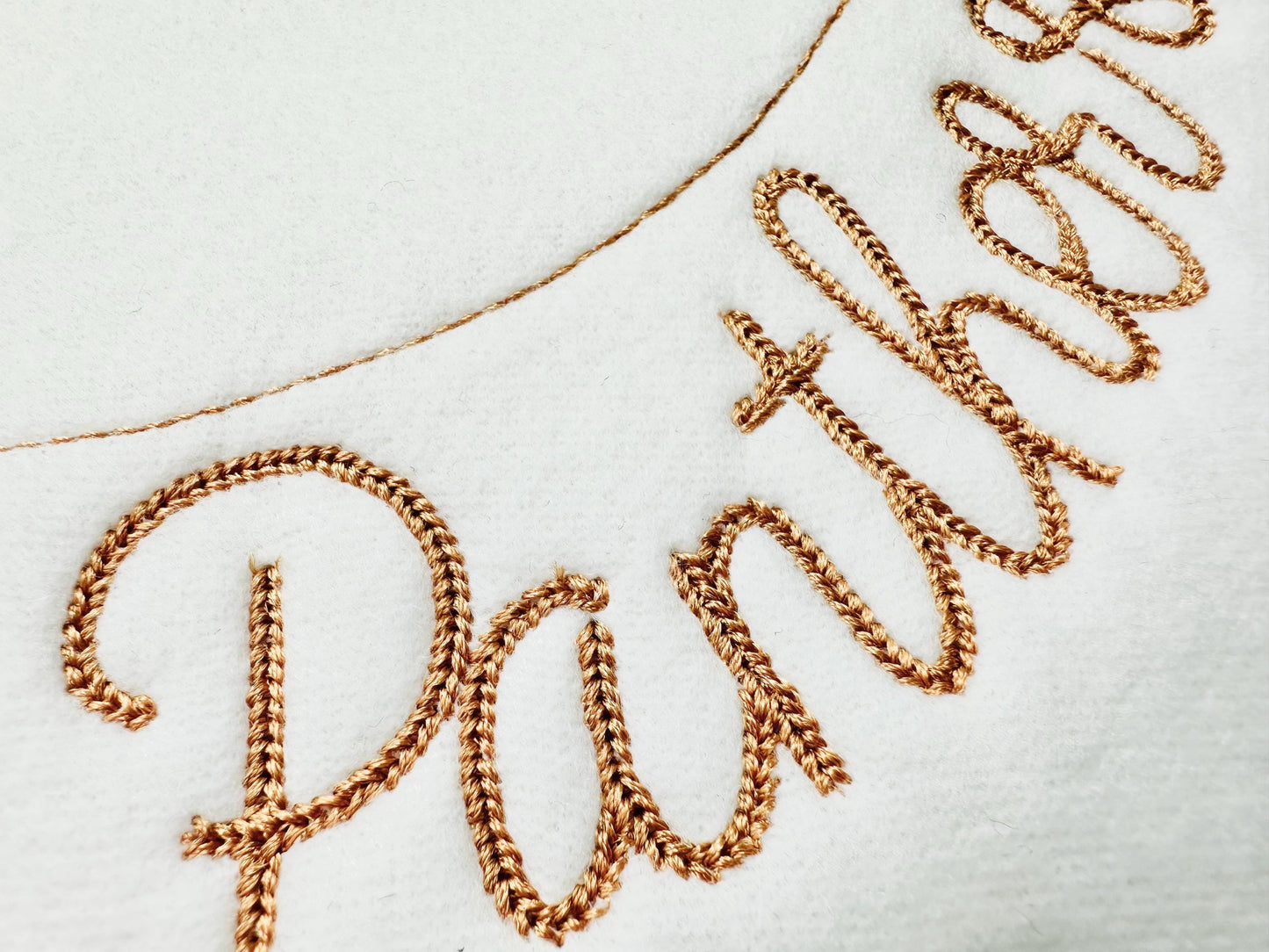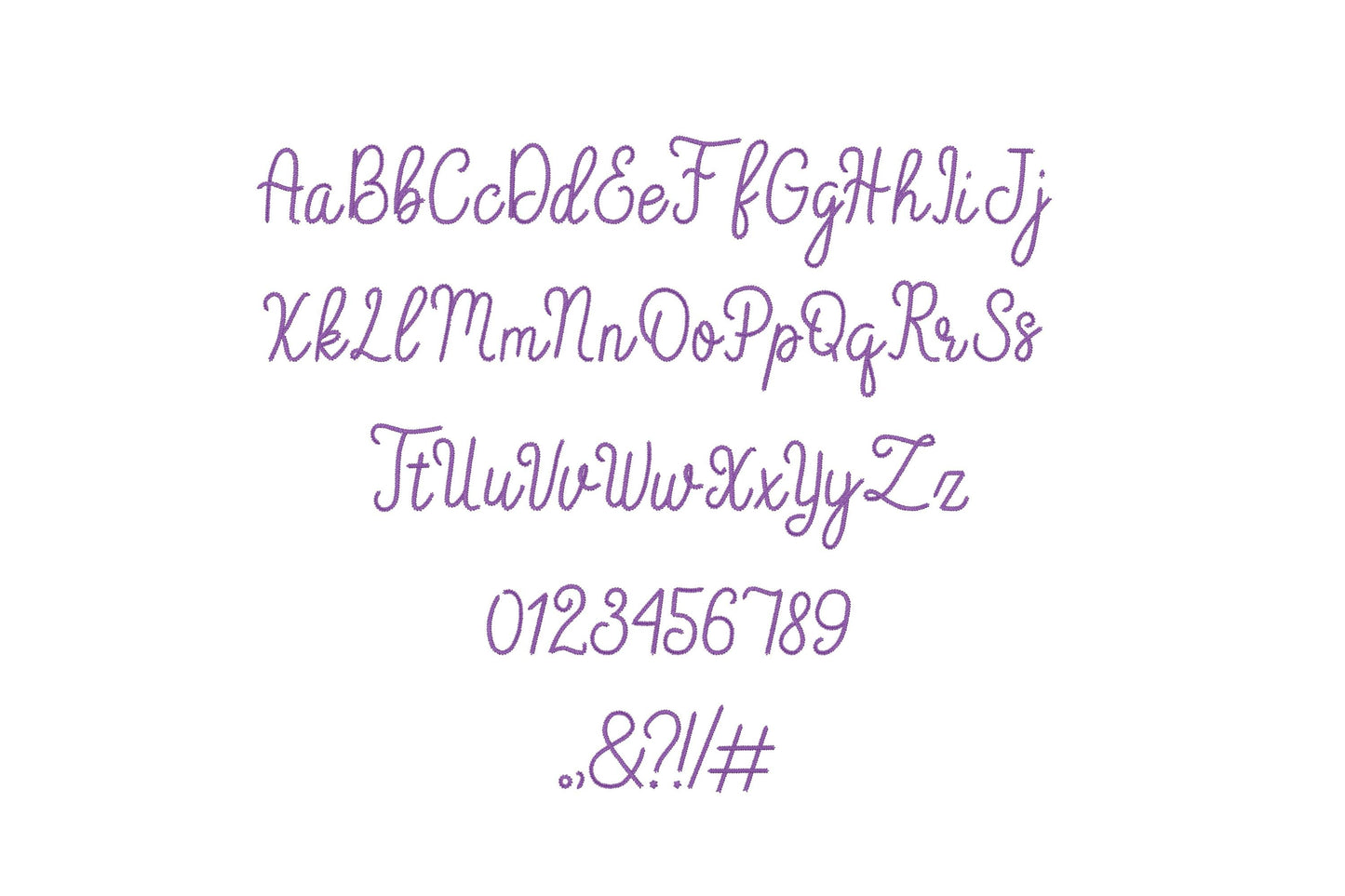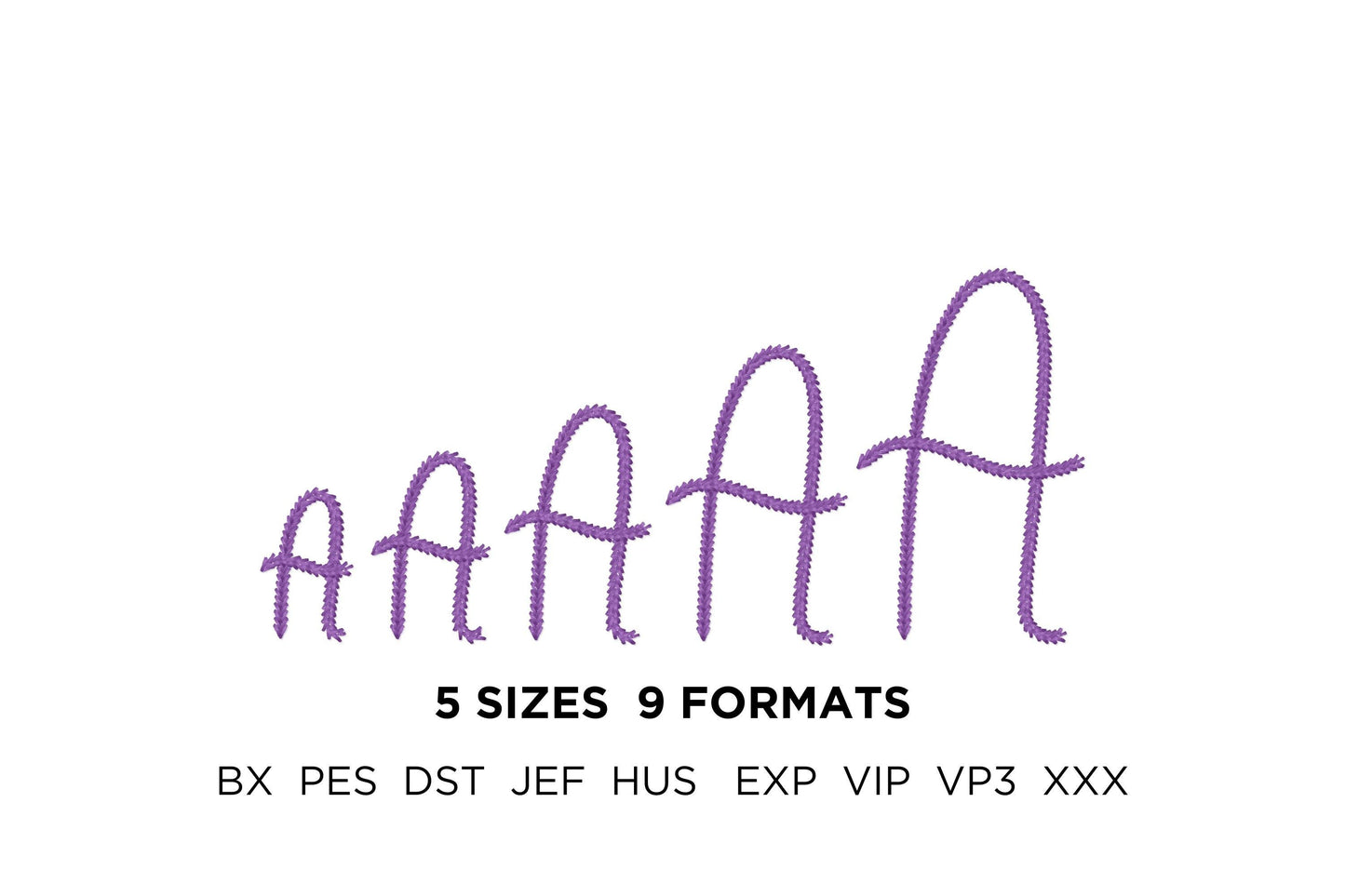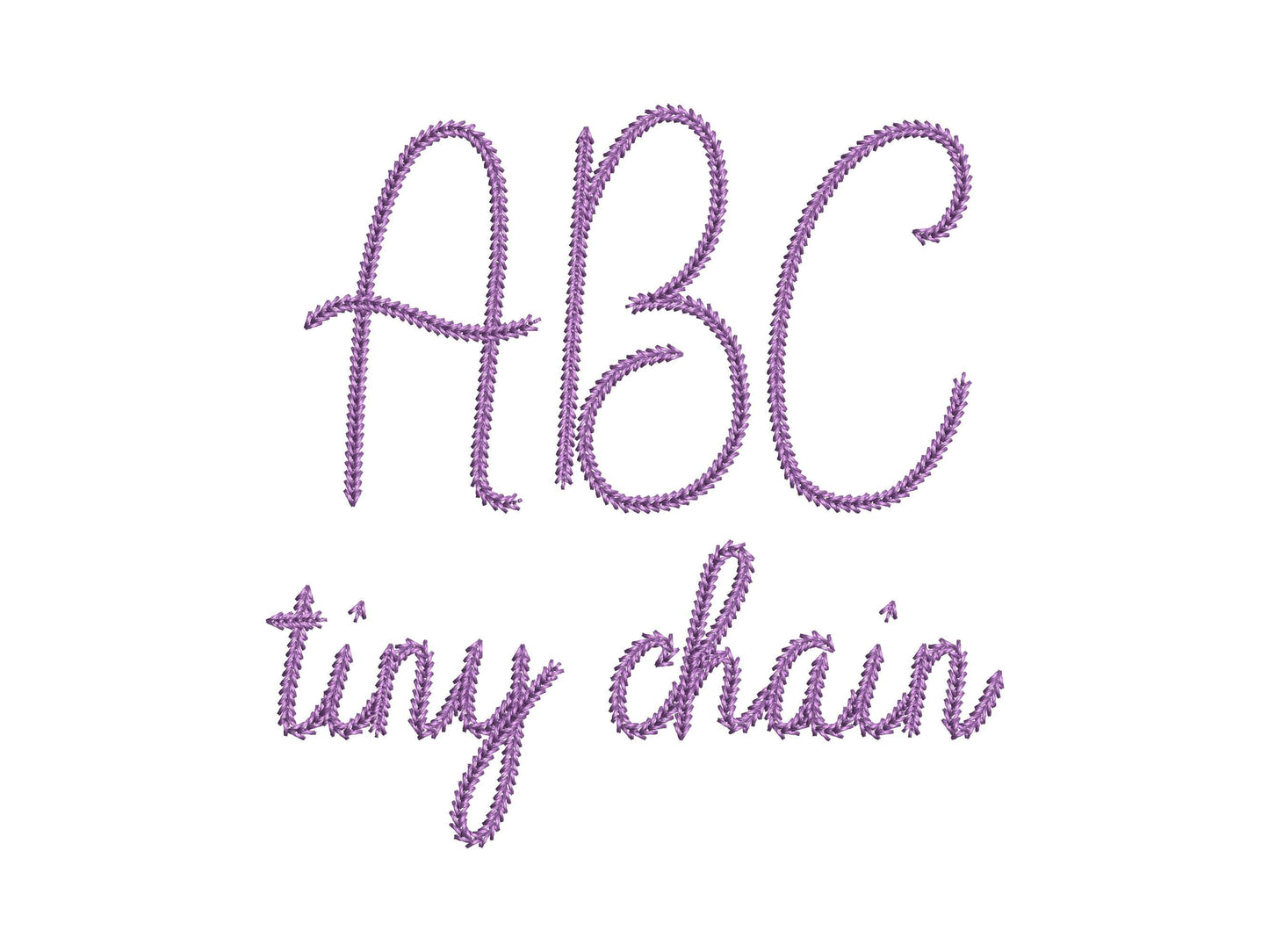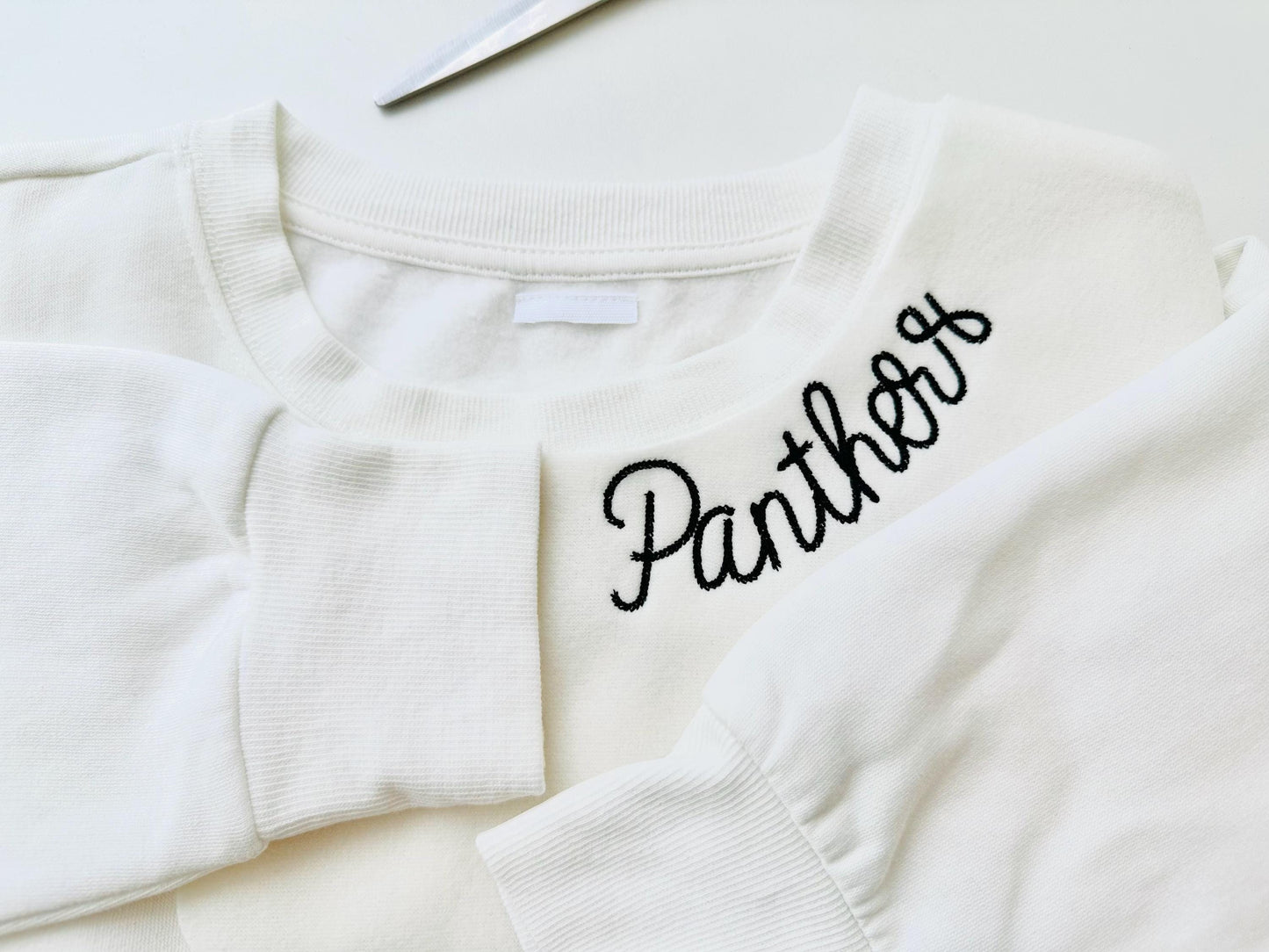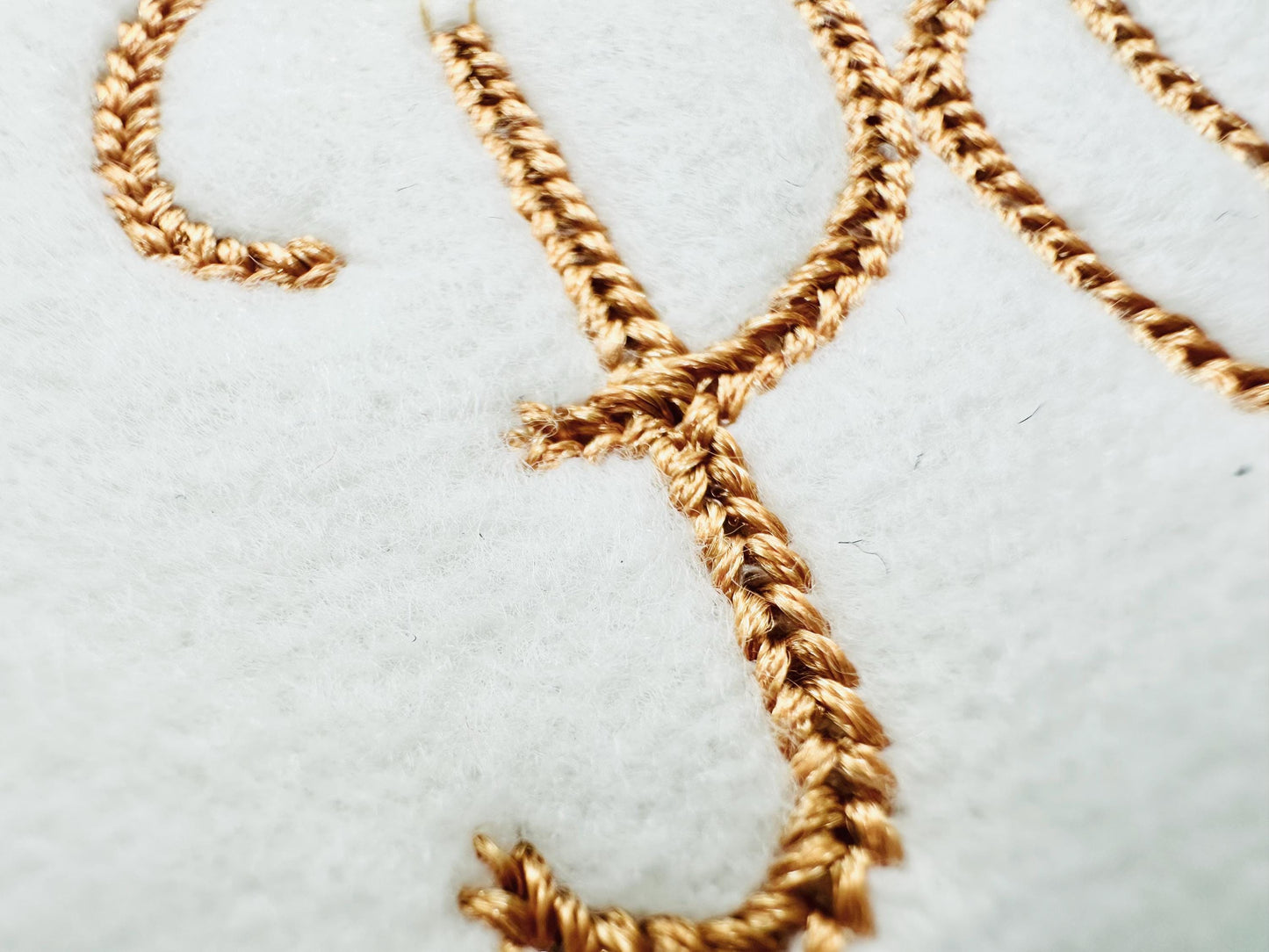
Or click to open the linkA tiny handwritten chain stitch script for small lettering. Made for kids' names, necklines, cuffs and pockets.
Uppercase and lowercase letters, numbers 0 to 9 and punctuation. Five small sizes: 1, 1.3, 1.6, 2 and 2.4 inches.